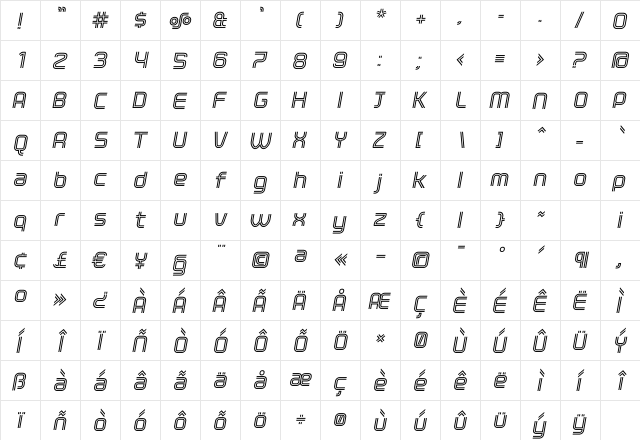
ClickBold Oblique Regular
Design Context for ClickBold Oblique Typeface
ClickBold Oblique takes a measured approach to typography — its balanced proportions and neutral character make it a reliable workhorse for both digital and print work. The slanted form adds forward momentum and visual energy. Its bold stroke weight gives it real presence on the page.